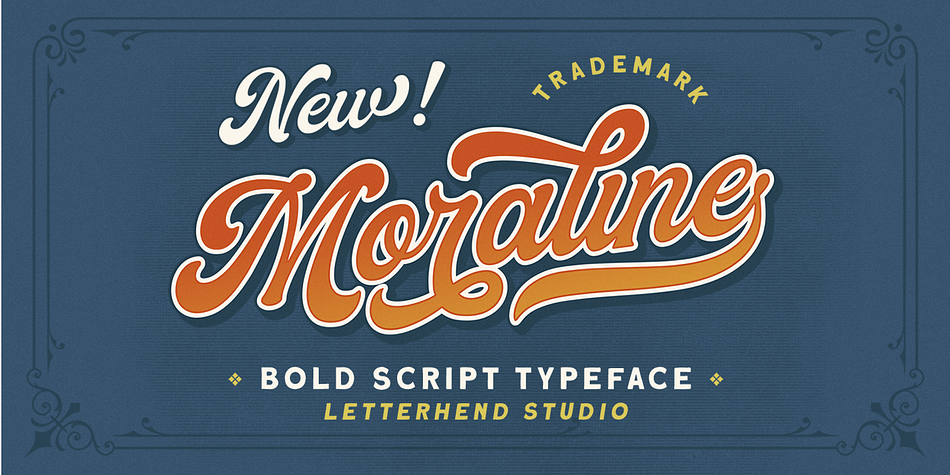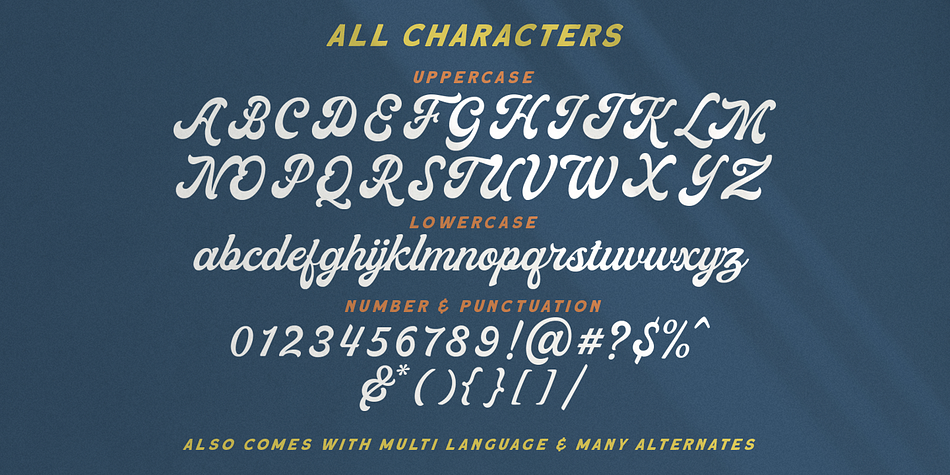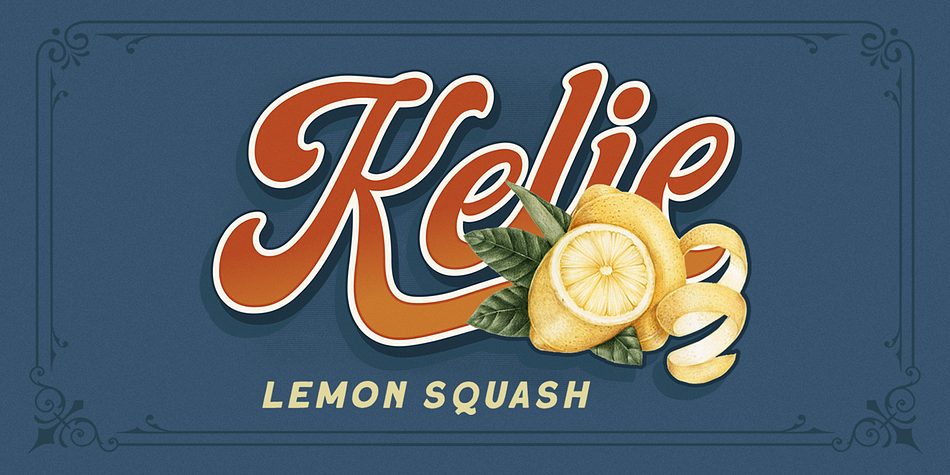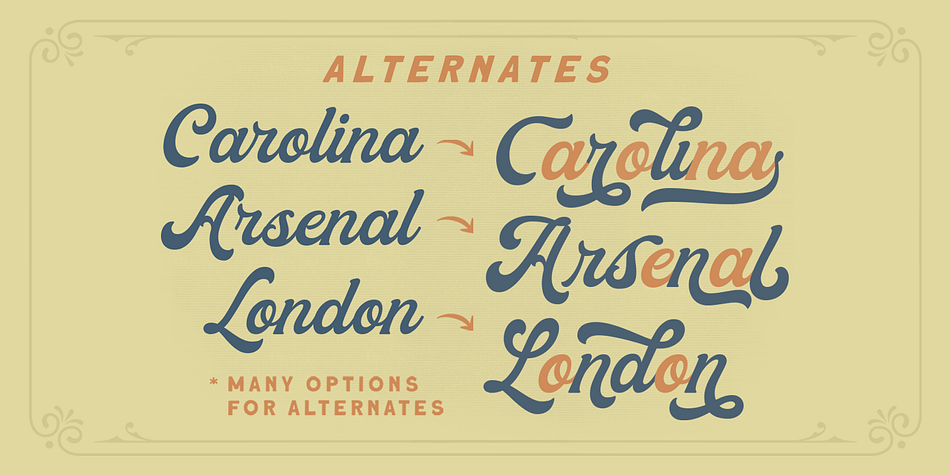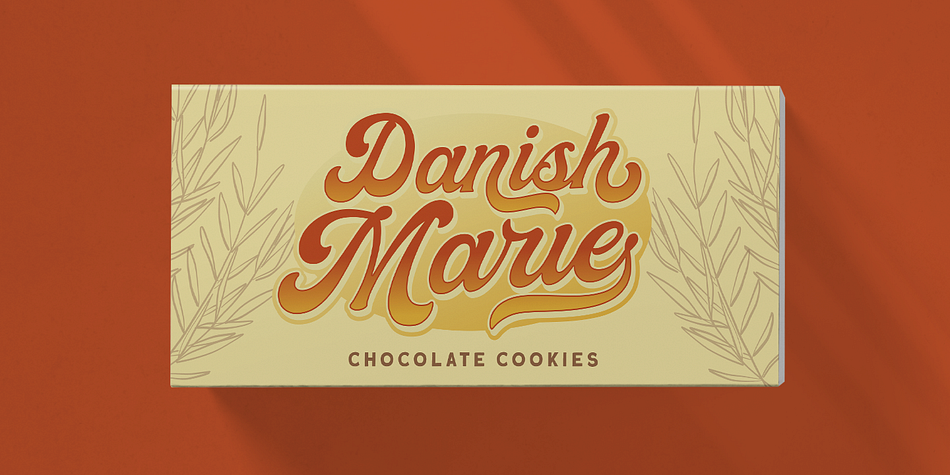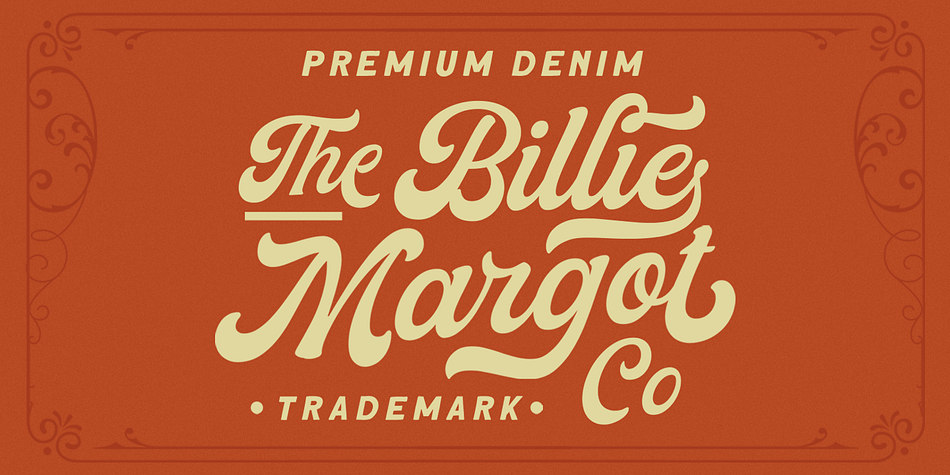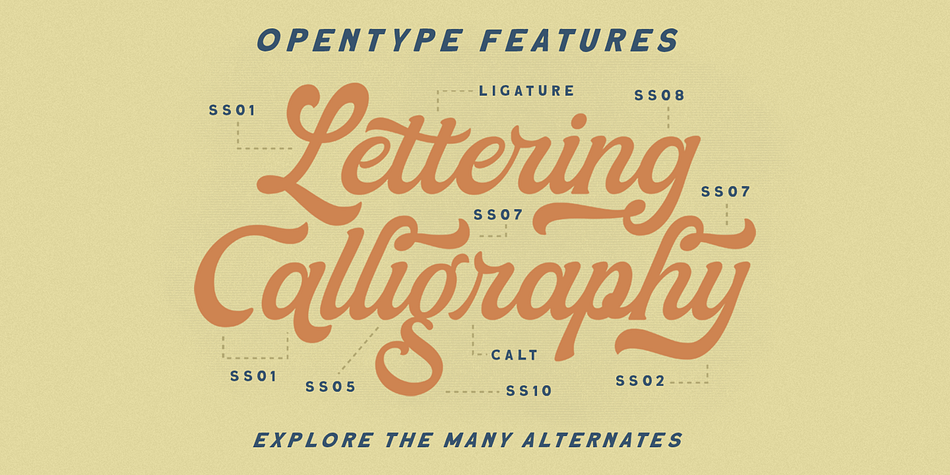
Designed by Hendry Juanda, Moraline is a retro and script font published by Letterhend Studio.
Introducing, Moraline - a standout bold script with a touch of vintage look and feel. This type of font perfectly made to be applied especially in logo, headline, signage and the other various formal forms such as invitations, labels, logos, magazines, books, greeting / wedding cards, packaging, fashion, make up, stationery, novels, labels or any type of advertising purpose.
- alternates / swashes and ligatures
Styles | Retro, Script |